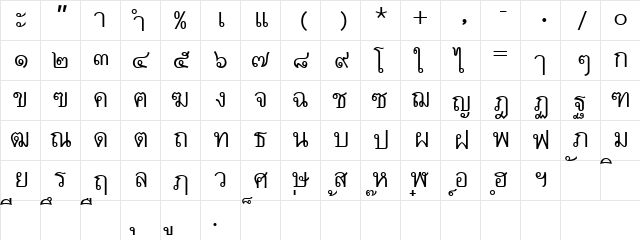
Thai7BangkokSSK Regular Font Preview
Thai7BangkokSSK Regular
Design Context for Thai7BangkokSSK Typeface
Thai7BangkokSSK is a composed and adaptable typeface that performs quietly and consistently across a wide range of design contexts.